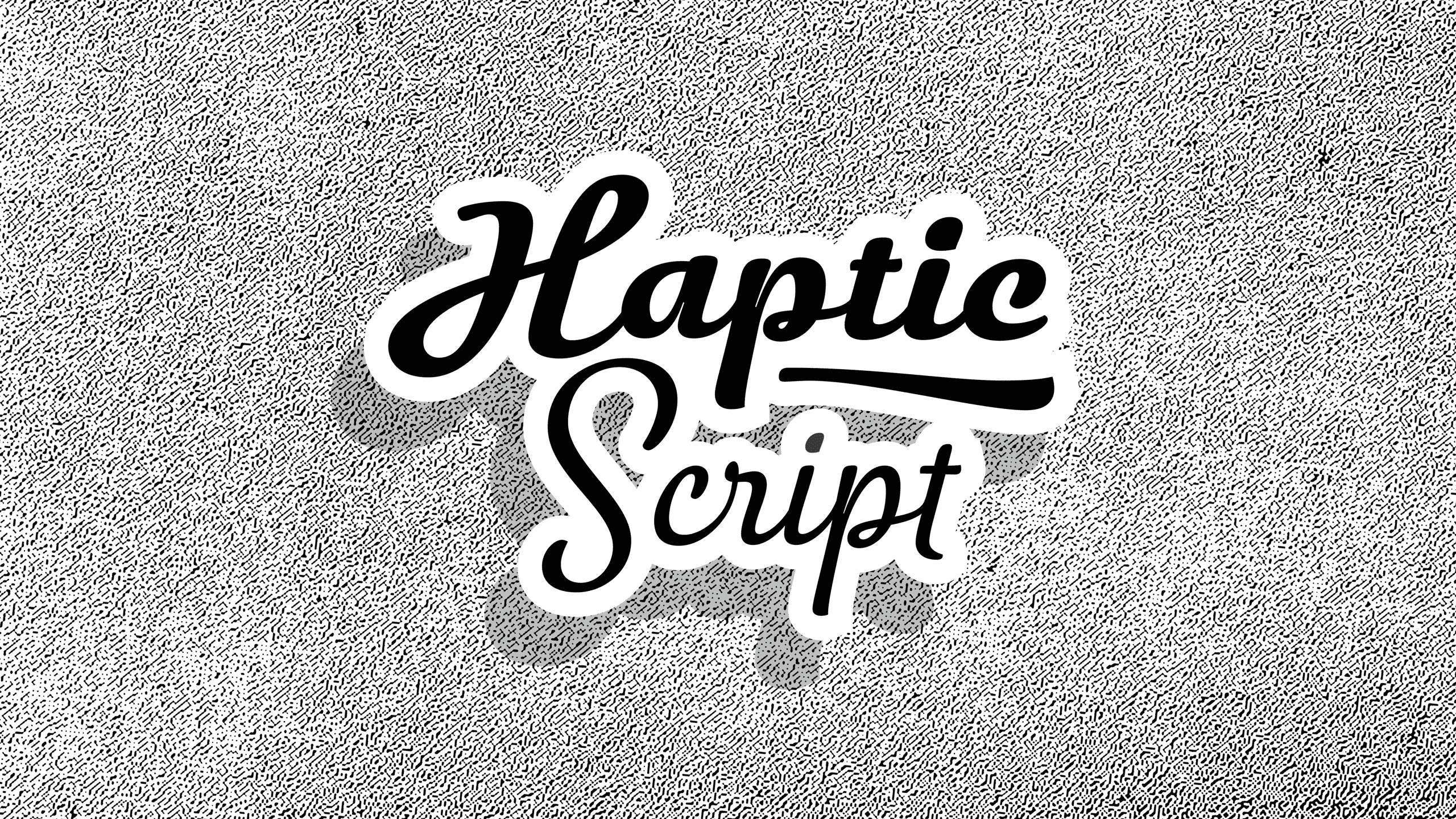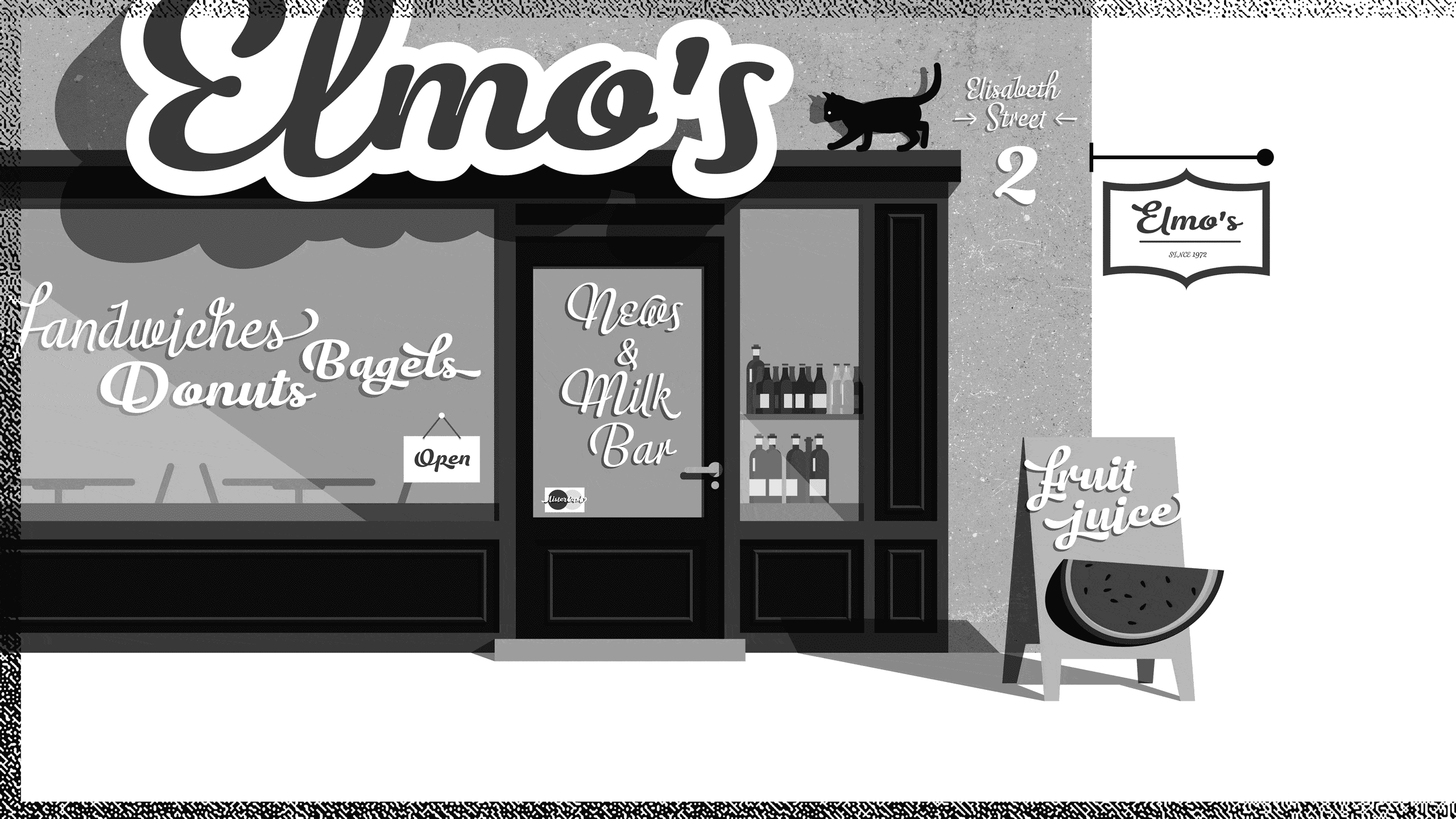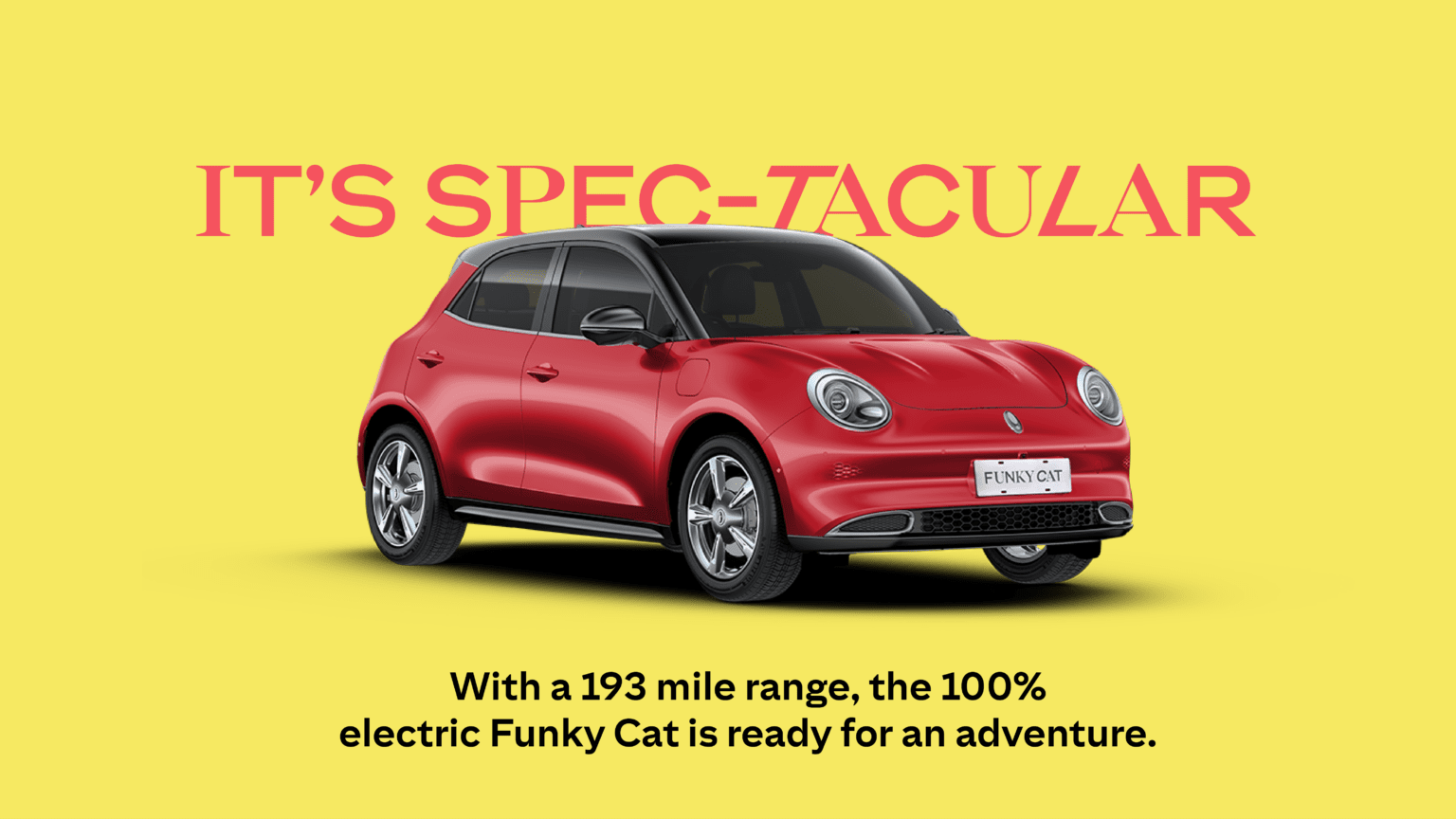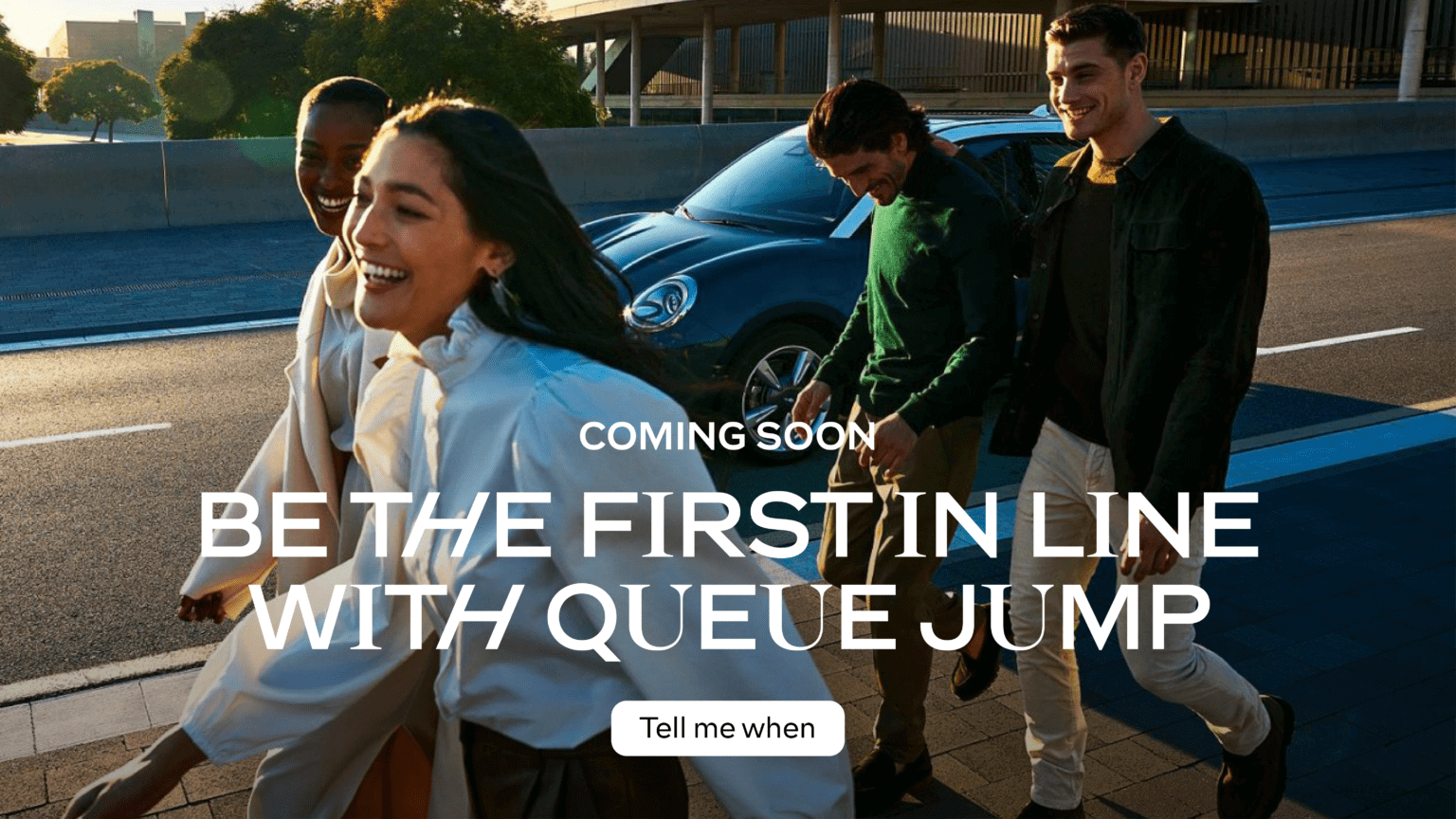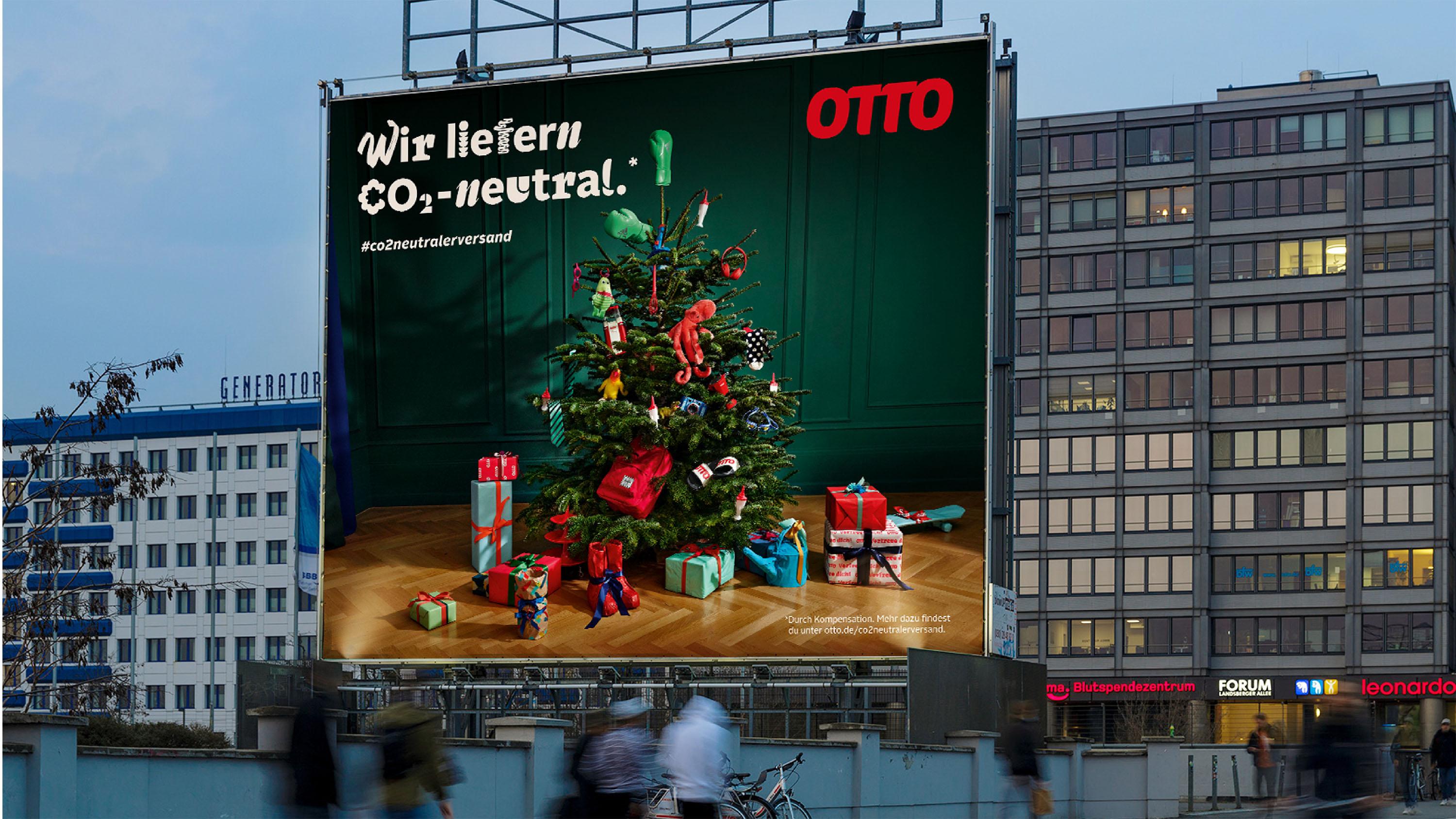
Yeah, that’s one of those cool aspects of working with clients like UNIMATIC. Custom work can be challenging, you know? Clients need the typefaces early on while their branding is still in the oven, so to speak. Then there's this waiting game until everything is implemented, and initially, things might not look as polished because everyone's still adjusting. But with UNIMATIC, it’s just seamless. You grab their image, slap it on your site, and it's good to go—no need for any extra polish.
That’s fantastic, indeed very rare. Can you recall a time or moment when you first noticed that type and lettering were appealing to you?
Oh, for that, I’d need to rewind quite a bit. It probably started back in my youth, around '95 or '96, with graffiti. It wasn't the gang culture aspect that drew me in; it was the artistic side of it. That fascination with visual art started even earlier, though. I was hooked on comics as a kid, especially this East German comic called Mosaik—ever heard of it? Probably not, but it's excellent, with high-quality drawings and storytelling. I remember running to the corner store with the money my mom gave me, just to get the latest issue. So yeah, it goes way back. And then, during my university years studying graphic design, I discovered there was an entire profession behind creating letters. Taking courses from Lucas de Groot was a real eye-opener. I hadn’t realized that people actually crafted the letters we type.
You started Character Type, your foundry, relatively recently, about five years ago; what were you doing in the interim years from graphic design school through to 2018?
By the time I graduated in 2007, I was starting a family and needed something stable, so I veered into graphic design. I spent a couple of years at a branding studio before starting a design studio with a former partner. That went well until it didn’t, and by the end of 2018, after a decade in graphic and branding design, I decided to dive headfirst into type design with Character Type.
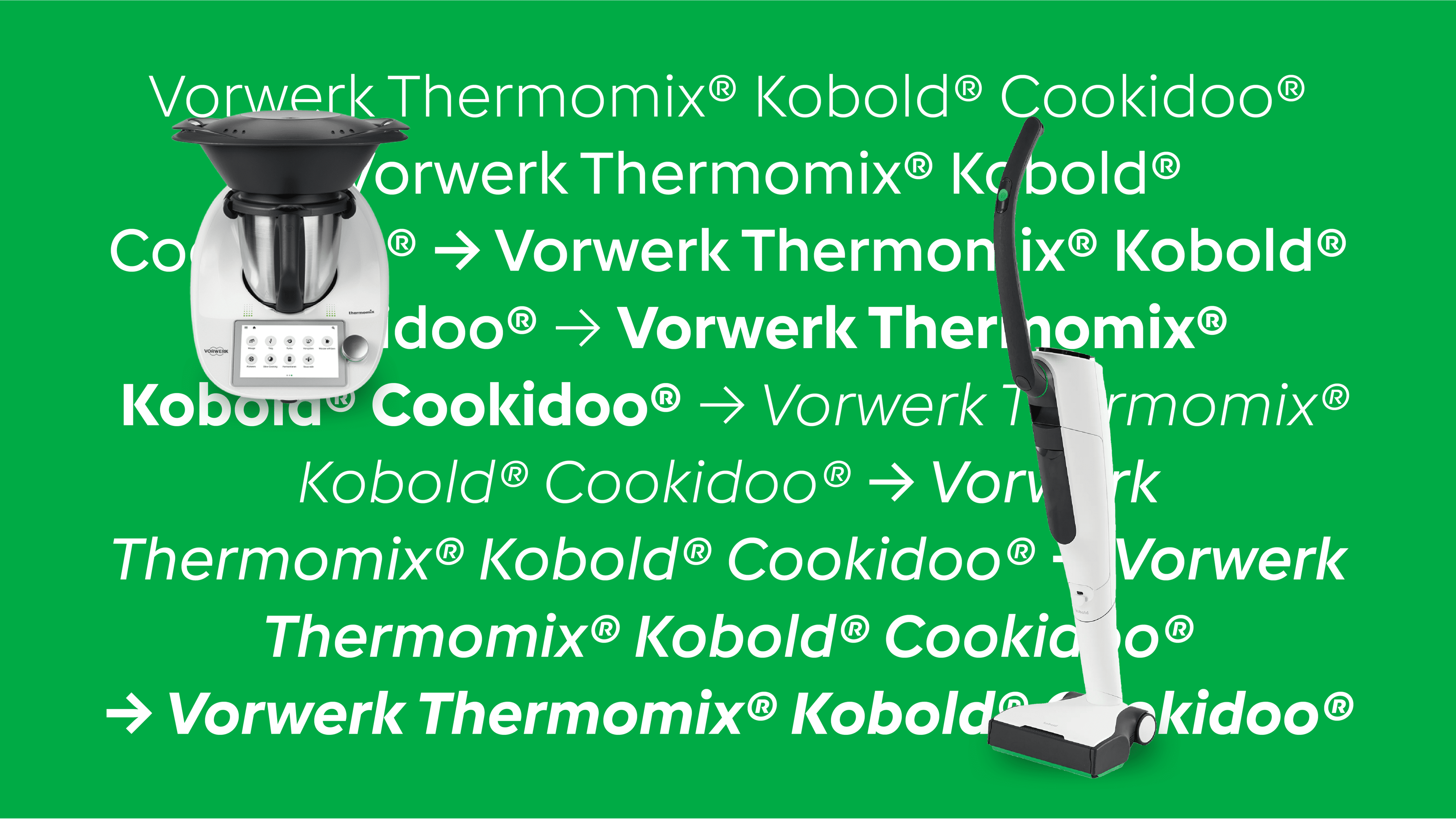
Character Type creates unique typefaces – custom or retail – to elevate small and international brands.
Since 2018, you’ve worked with some notable clients like Lamborghini and Süddeutsche Zeitung. How do these experiences shape your retail typefaces, such as NewsSerif and NewsSans?
Those years weren’t just about graphic design; they were also a deep dive into typography, especially in the context of editorial design. This background is invaluable. It's not just about creating pretty letters; it’s about understanding the needs of the users, the strategic considerations behind a brand, and how type can play a role in that. So when I started Character Type, I naturally leaned on that experience. You can see that with my recent work for Lamborghini, for whom I just designed a new brand typeface, Lambotype. With NewsSerif and NewsSans, I wanted to create something that drew from my newspaper design background, reflecting the practical, strategic aspects of type that I had come to appreciate.
Out of your custom projects, which ones stand out or best demonstrate your capabilities?
The Süddeutsche Zeitung project is definitely a standout because it was so comprehensive and ongoing, which allowed for a depth of engagement you don’t always get. Lambotype for Lamborghini epitomizes my approach—subtle, brand-aligned details within the typeface, not loud or ostentatious, but thoughtful and nuanced. These projects, where the typeface can deeply reflect the brand’s identity and ethos, are the ones that excite me the most and showcase what I aim to achieve with my work.
What’s your dream or ideal custom project?
I’m really drawn to projects that go beyond the Latin script, incorporating an international scope. It’s not just the complexity of design that interests me, but the strategic and research elements involved in accommodating diverse languages and cultures. For instance, the project for Vorwerk, while it might look like another geometric sans, was deeply fascinating due to its extensive glyph set and the challenges of making it accessible to a large audience. My ideal project would be with an international brand that communicates across various markets, bringing that added layer of complexity and richness to the design process.
Do you prefer doing custom work for corporate clients or seeing one of your retail faces used in unexpected ways?
Honestly, I get a kick out of both. There’s something truly gratifying about seeing a typeface I’ve designed being used out in the world, whether it's a custom project for a corporate client or a retail font applied in creative ways I hadn't anticipated. The joy comes from the realization that something I’ve created is helping someone communicate their message more effectively or adding an aesthetic dimension to their project. It’s not so much about the context in which the typeface is used, but the fact that it's being used well and serving its purpose.
Character Type created a geometric typeface family with an extensive glyph set (1.521 glyphs) covering 311 languages (Latin, Cyrillic and Greek) for Vorwerk, a German appliance company. Designed with a keen eye towards text economy the geometric Vorwerk typefaces turned out to be nearly as space saving as Roboto Sans.
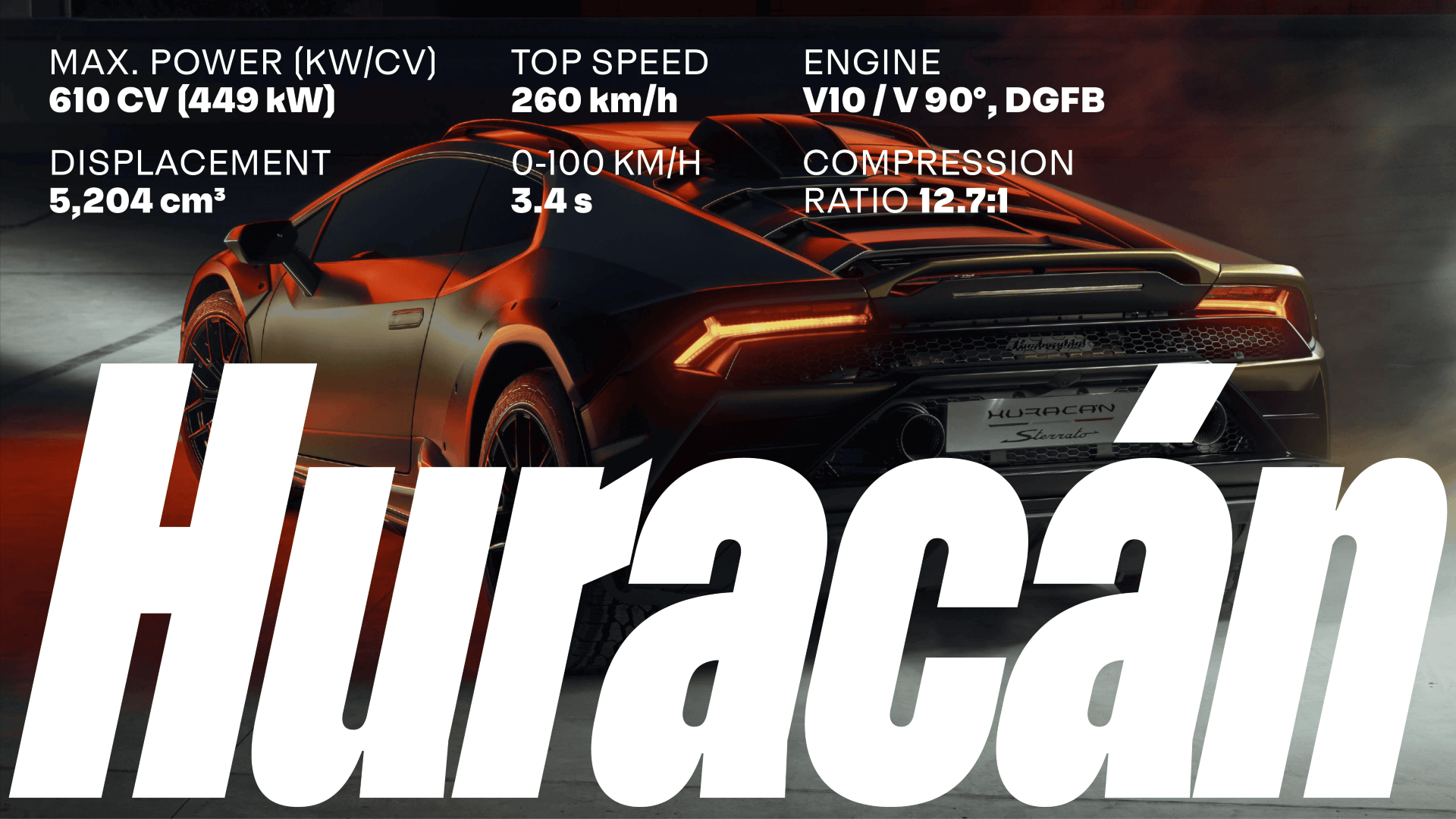
Inspired by Lamborghini’s rich heritage and the “Direzione Cor Tauri – Another step forward” transformation process, the Lambotype typefaces embody the extraordinary and the unconventional. Designed by Character Type as part of the Lamborghini brand redesign led by Strichpunkt, this extensive typeface family, ranges from Normal to Ultracompressed and Light to Black.